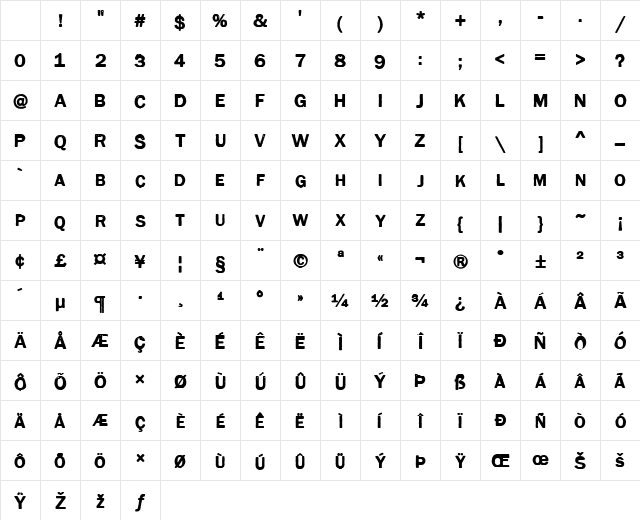
Complete Cynocel Poster Regular glyph index. Displaying only characters natively supported by Cynocel Poster Regular font.
Cynocel Poster is a composed and adaptable typeface that performs quietly and consistently across a wide range of design contexts.